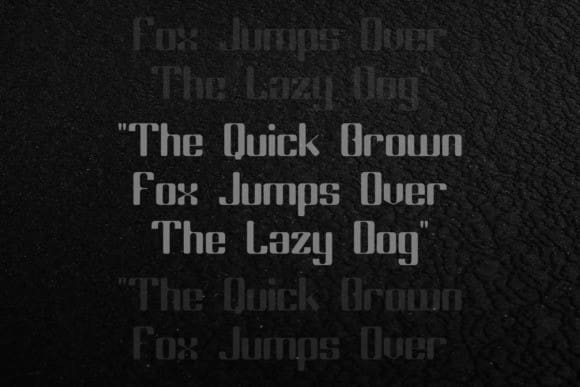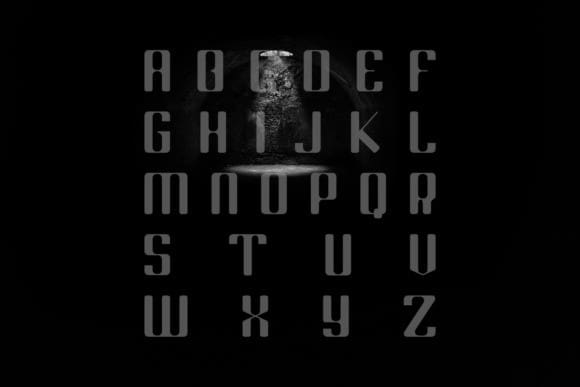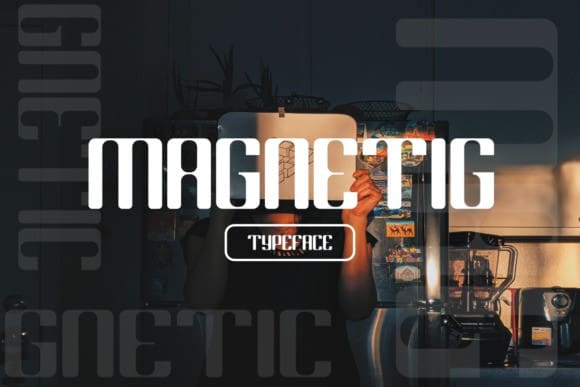
Magnetig Display Font
Magnetig Display Font is a cool, modern and incredibly interesting display font. Expertly designed to make your creation look out of this world, this font will look gorgeous on a variety of ideas.
This font is ideal for writing web designs, business cards, or pretty much anything else that requires a unique touch.